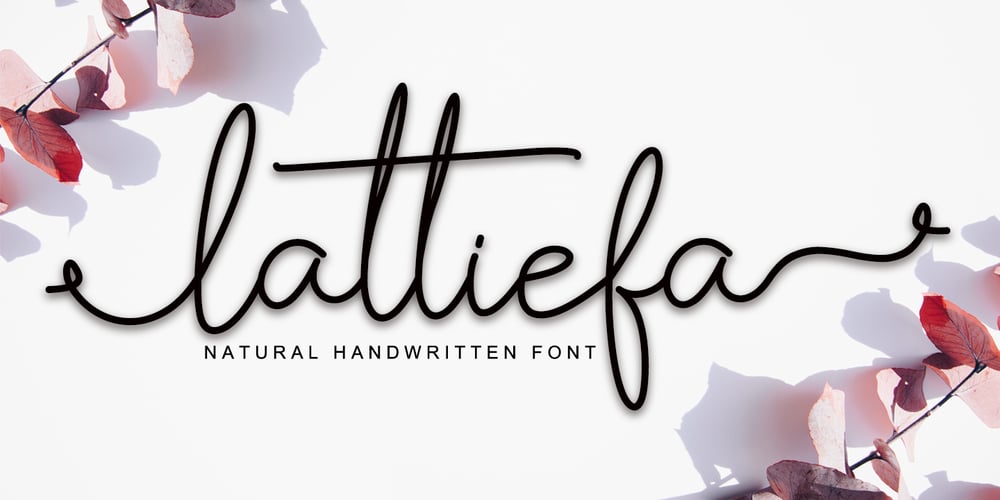
Lattiefa Font Family was designed by Agung Eko Nugroho and published by AEN Creative Studio. Lattiefa contains 1 styles and family package options. Lattiefa is a great font for your design projects. It’s simple, casual and elegant, has a natural touch and comes with ligatures & beautiful swashes. Lattiefa is perfect for logos, wedding invitations, social media posts, signatures and much more!